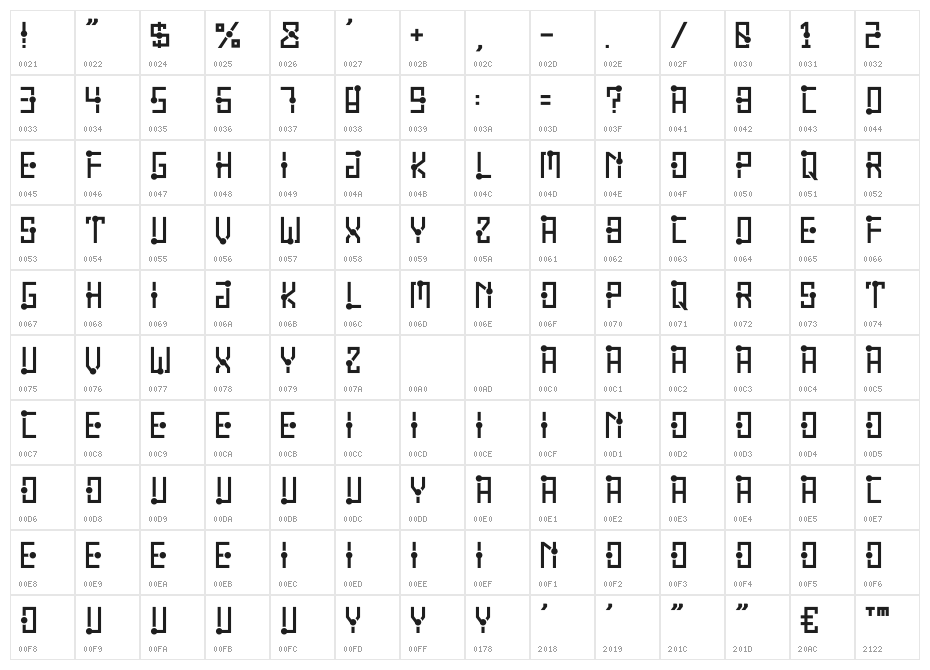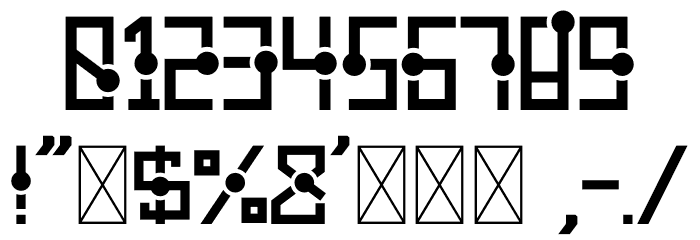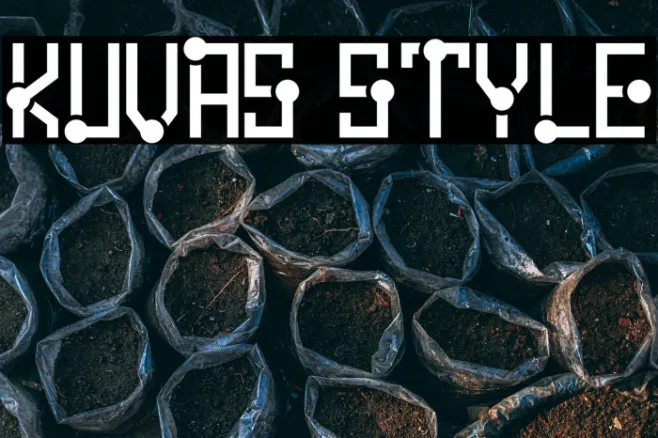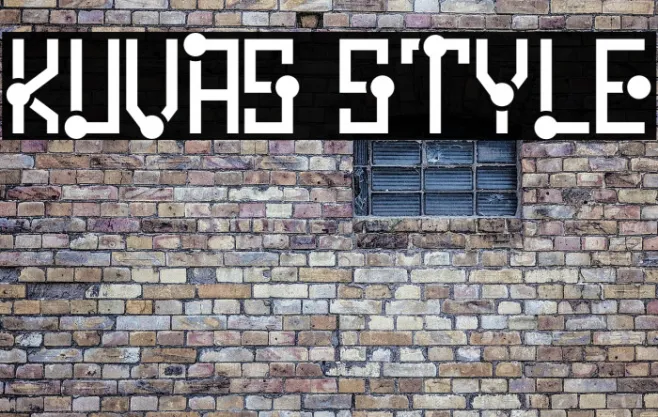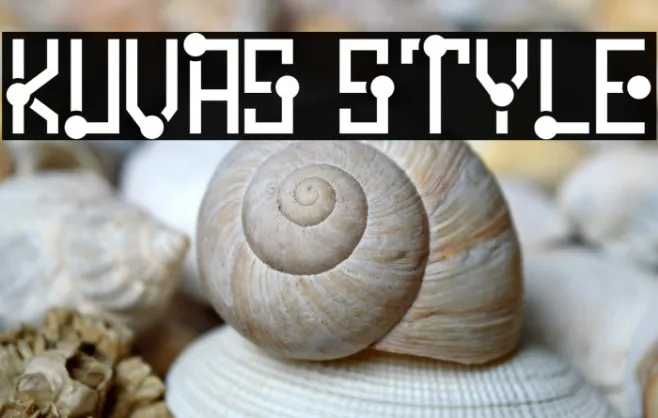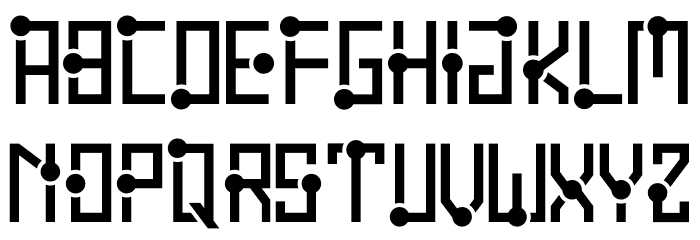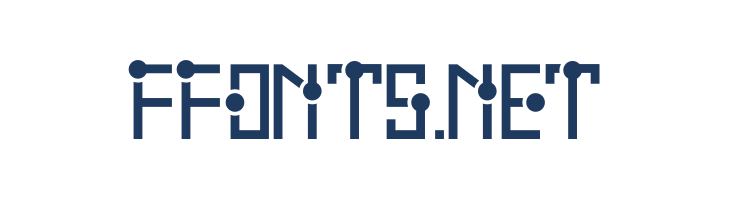
KUVAS Style Font
KUVAS Style Description
This font features a unique, futuristic design with a geometric, grid-like structure. Each character is composed of straight lines and circular nodes, creating a digital, tech-inspired aesthetic. The uppercase and lowercase letters maintain a consistent style, with the circular elements providing a distinct visual rhythm. Numbers and special characters are designed with the same structural elements, ensuring uniformity across the font. The bold, angular lines make it highly legible, while the circular nodes add a decorative touch, making it stand out in modern design projects.
| Proposed Projects | Ideal for tech branding, digital interfaces, sci-fi themed projects, and modern posters. |